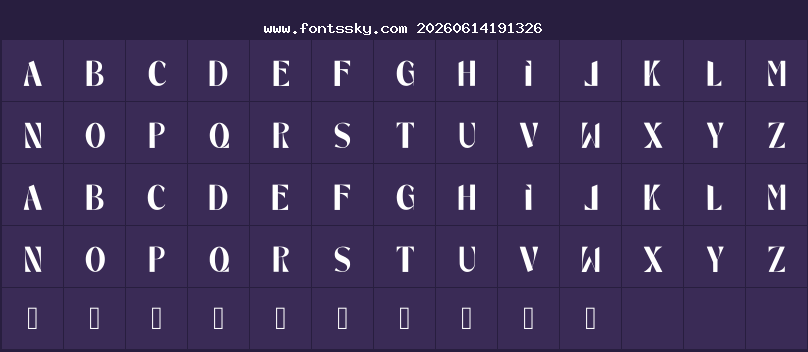
Kerao Preview
• Font Name: Kerao
• Full Font Name: Kerao Regular
About Kerao.ttf
Kerao.ttf is a modern, elegant sans-serif font designed for ultimate readability and visual harmony. Perfect for branding, headlines, web design, and print materials.